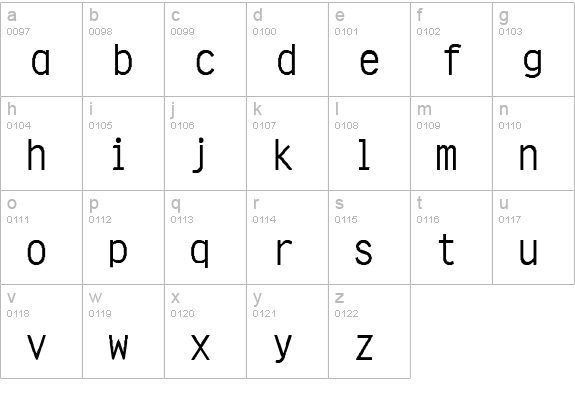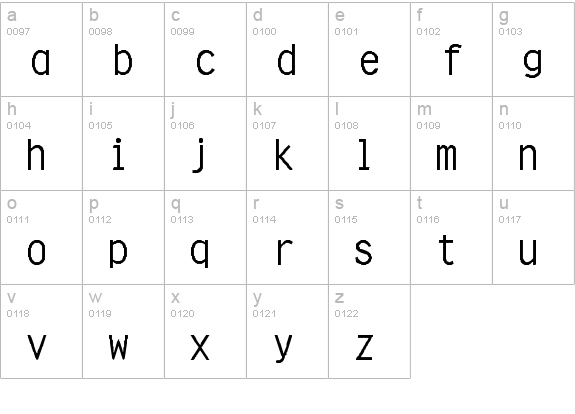
Upholland-Normal Font Details
Upholland-Normal is the standard, neutral variant in the Upholland typeface family \xE2\x80\x94 well suited to general body text, paragraphs, and standard typographic work.
Upholland-Normal font is a stunningly elegant typeface that effortlessly combines modern sophistication with timeless appeal. Its sleek and clean lines create a sense of refinement, making it perfect for a wide range of design projects. Whether you're working on a logo, branding materials, or even a website, Upholland-Normal font will add a touch of class and professionalism. This font boasts a balanced and harmonious letterform, capturing attention with its subtle yet distinct details. Its versatile nature allows it to seamlessly adapt to various design styles, from minimalist to more ornate compositions. Upholland-Normal font's meticulously crafted characters exude a sense of confidence and grace, making it a standout choice for any visual project. One of the most appealing aspects of Upholland-Normal font is that it is available for free download at FontsMarket.com. This means that you can enjoy the beauty and versatility of this font without any cost. With just a few simple clicks, you can enhance your creative endeavors with this remarkable typeface, adding an extra layer of professionalism and style. Don't miss the opportunity to elevate your designs with Upholland-Normal font. Download it today from FontsMarket.com and experience the freedom of creating stunning visuals with this exceptional font.